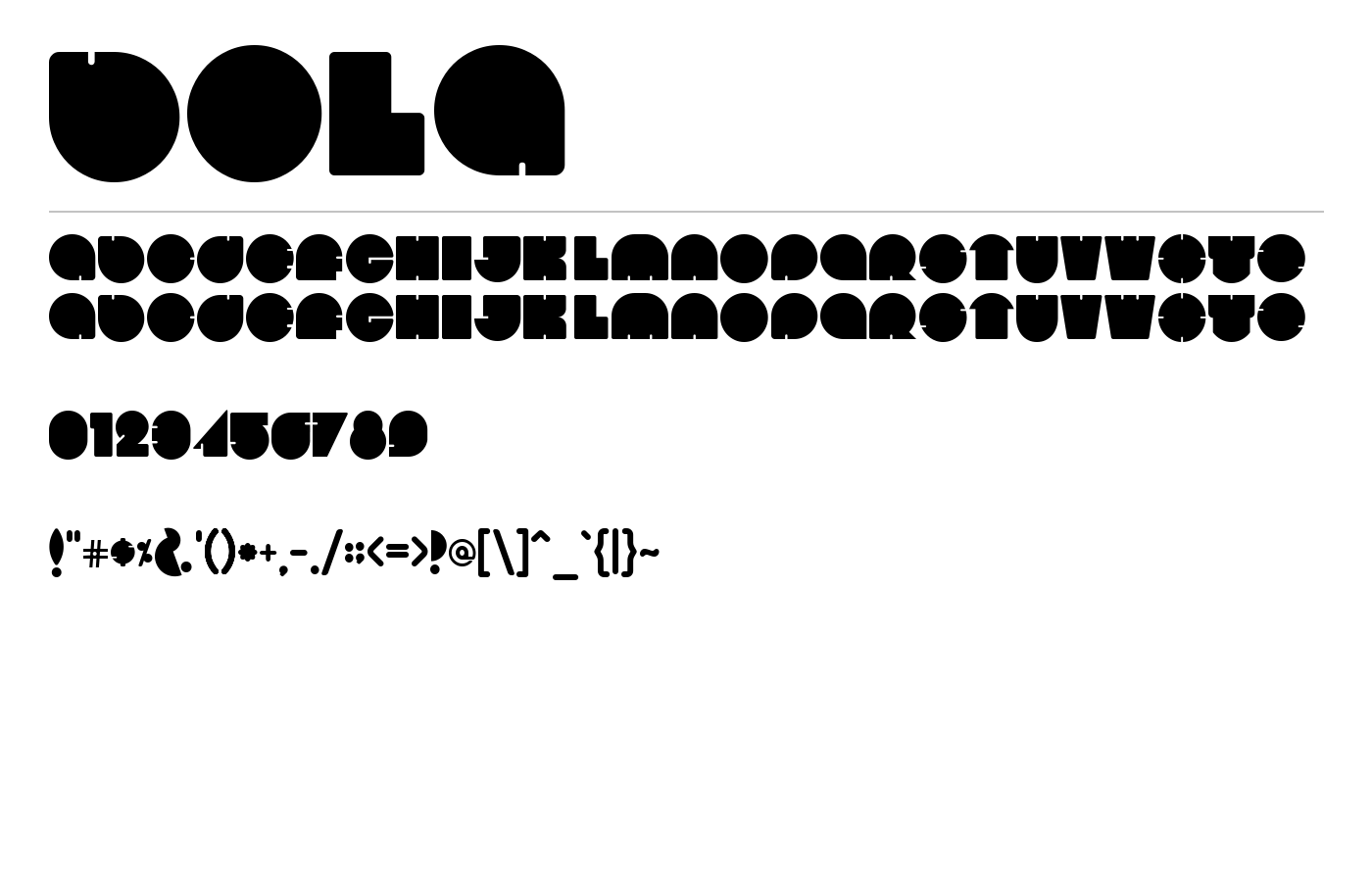
Bola is a bold, geometric sans serif font with a playful and modern vibe. Its rounded shapes and heavy weight give it a strong, impactful presence, making it ideal for eye-catching headlines, logos, and branding that want to express creativity and fun. The unique, blocky letterforms with tight spacing create a distinctive style perfect for contemporary design projects seeking a bold statement.
Bola Font
About Bola Font
| Font family | Bola Font |
| Designer | Pablo Caro |